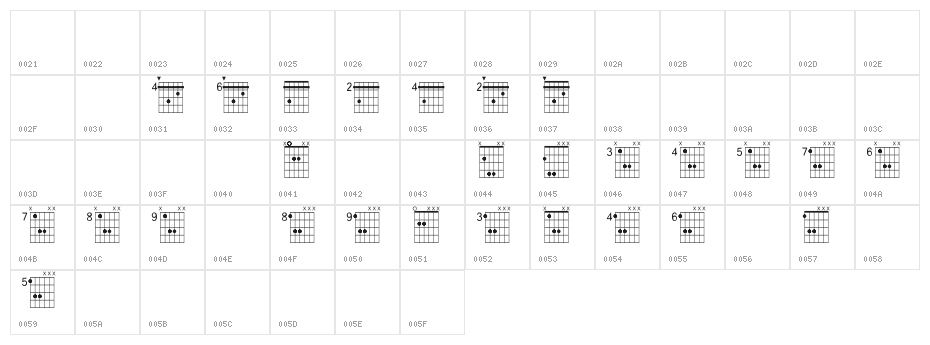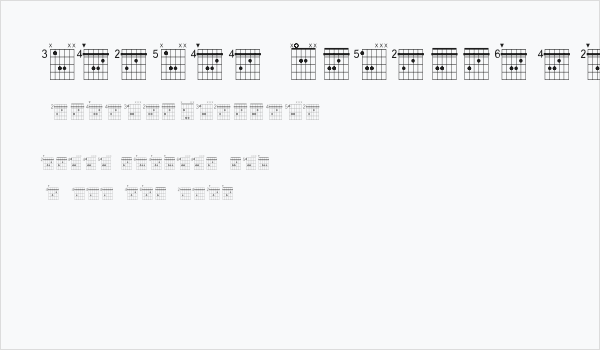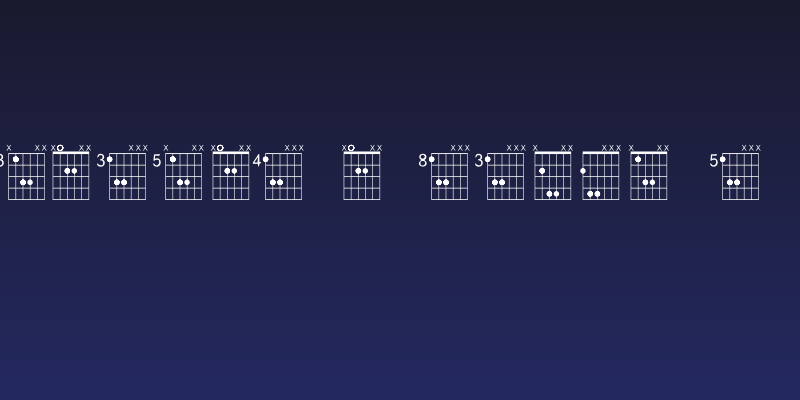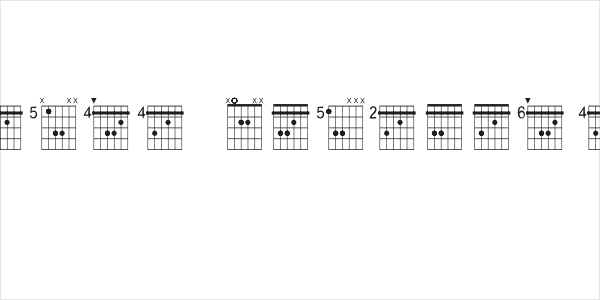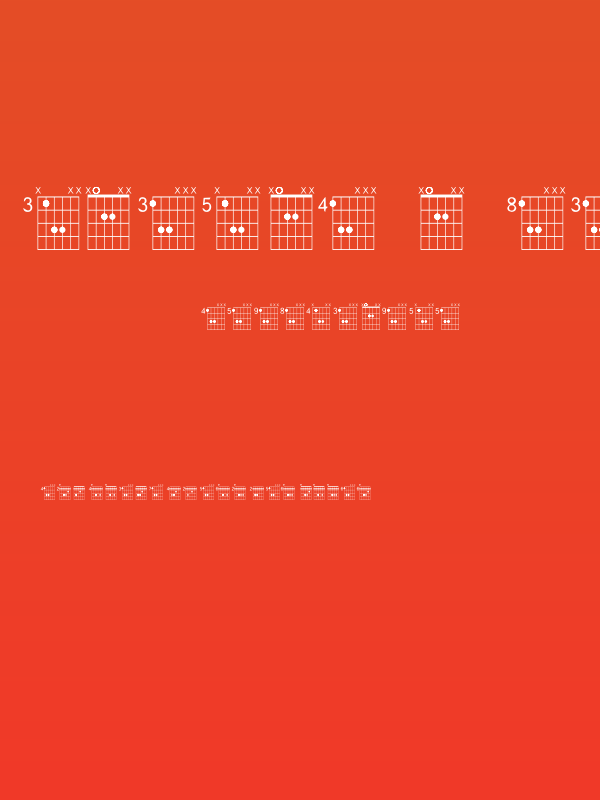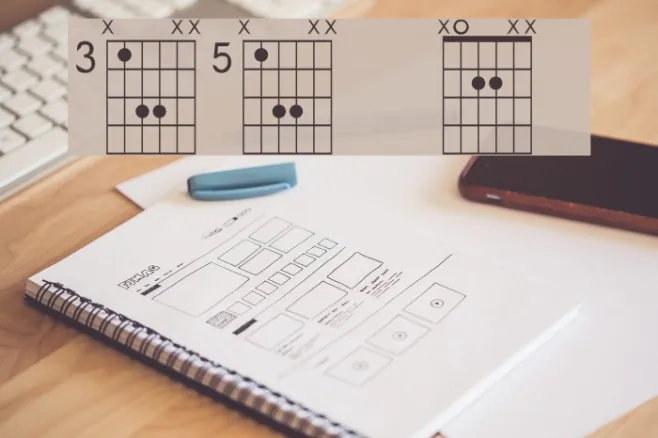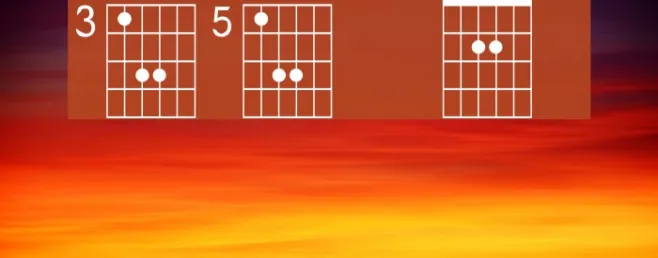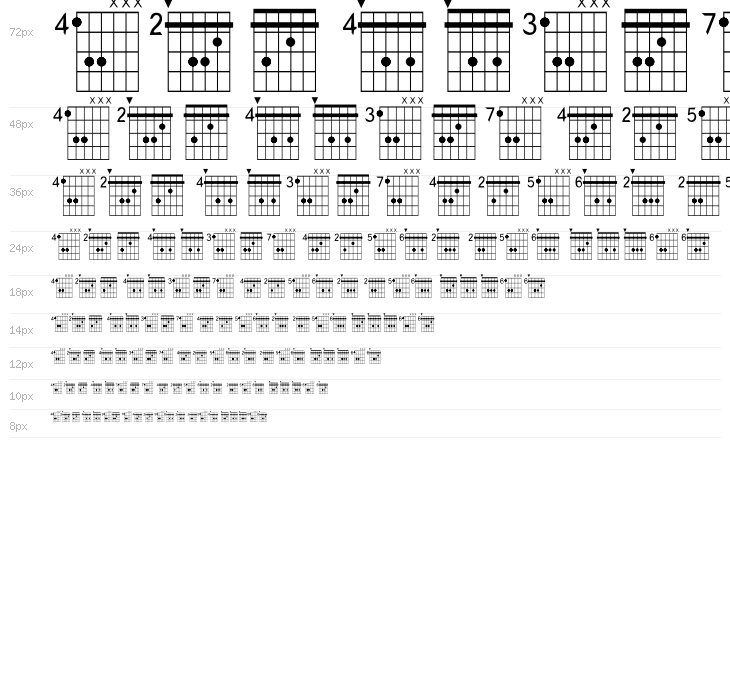
FarHat-Acordes b y # Font
FarHat-Acordes b y # Description
A geometric, monospaced font with uniform stroke thickness, clean lines, and clear separation between characters. The glyphs are highly legible, with consistent proportions and minimal decorative elements. Numbers and symbols are clearly distinguishable, and the overall design prioritizes functionality and clarity.
| Overall Style | Modern, Functional |
| Use Case | Chord diagrams, technical notation, instructional graphics, code. |
| Proposed Projects | Sheet music, chord charts, tablature, technical diagrams, coding environments, instructional materials. |